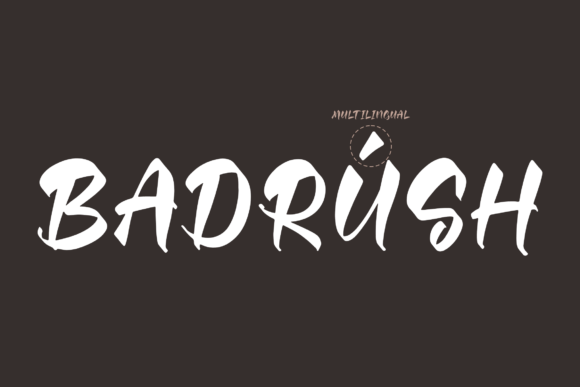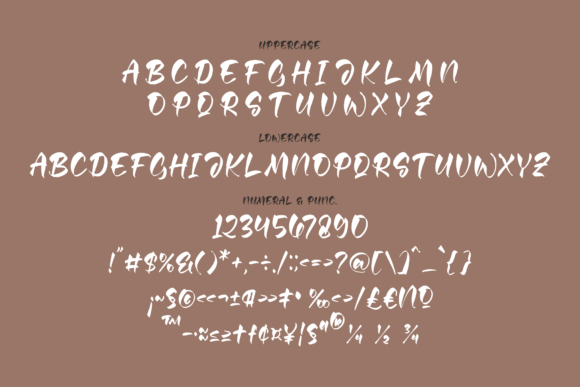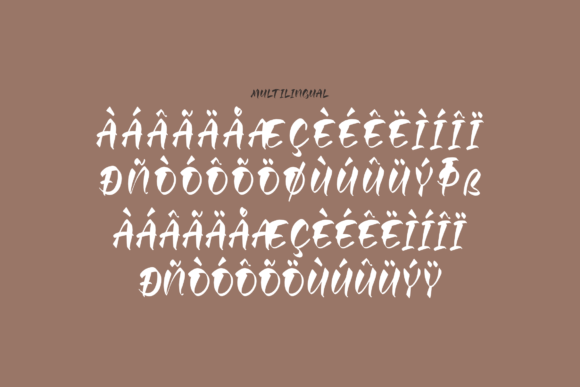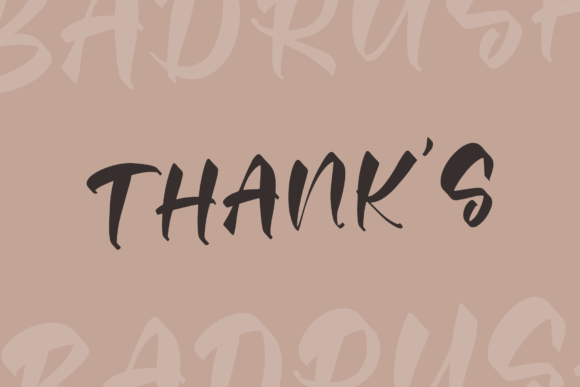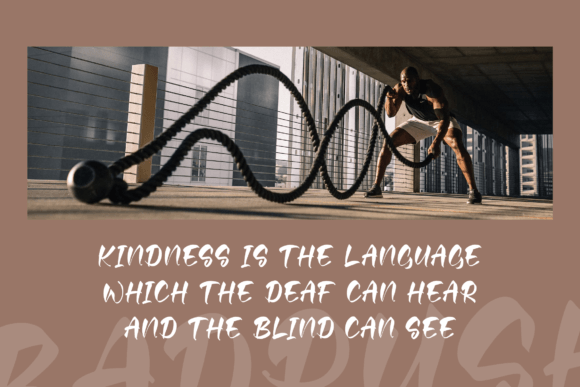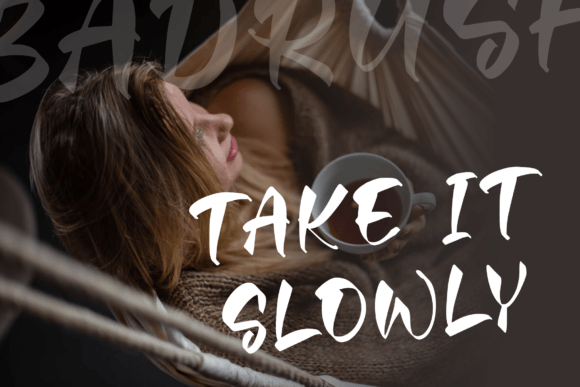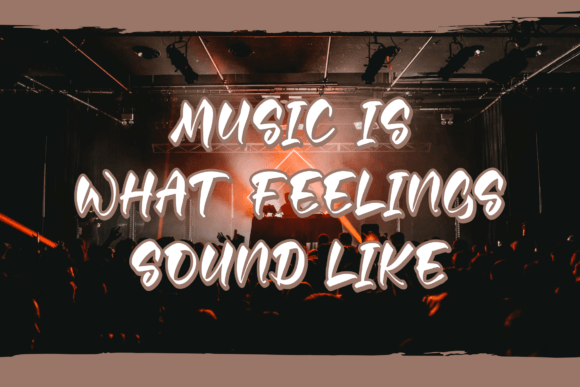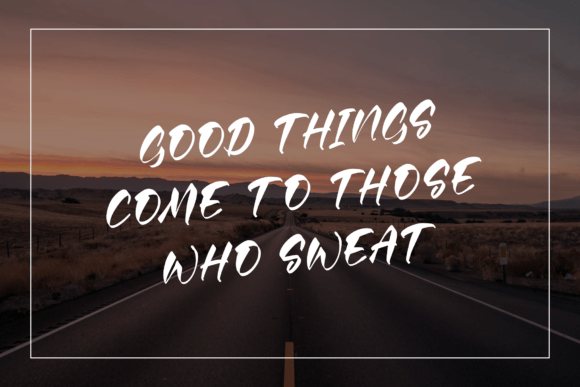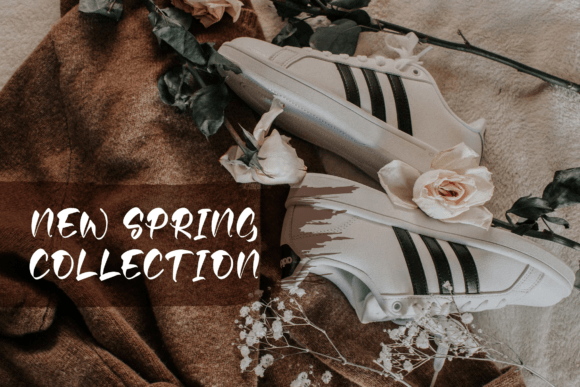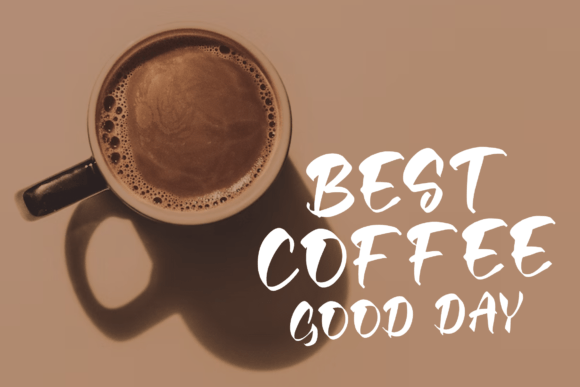
Badrush Font
**Badrush: A Fun and Quirky Handwritten Font**
Meet Badrush, a playful and quirky handwritten font that brings a sense of fun and uniqueness to your creative endeavors. Whether you’re in search of fonts for Instagram posts or calligraphy scripts for DIY projects, Badrush has the potential to transform any creative idea into a one-of-a-kind piece of art.
The primary charm of Badrush lies in its fun and quirky style. The handwritten characters exude a sense of playfulness and creativity, making them perfect for projects where you want to infuse a touch of whimsy and individuality. This font’s versatility allows it to adapt to various design contexts, from social media posts to handmade DIY projects.
Badrush is designed to add a fun and personal touch to your creative work. It’s ideal for crafting Instagram posts that stand out with a unique and expressive vibe. It’s also a fantastic choice for DIY projects, adding a playful and creative element to your handmade creations.
In summary, Badrush is more than just a font; it’s a source of fun and quirkiness that enhances your creative projects. Its playful handwritten letters and versatility make it a valuable choice for infusing creativity and individuality into your work. With Badrush, your creative ideas will come to life as unique pieces of art. Choose Badrush, and let your imagination run wild with its fun and quirky charm.